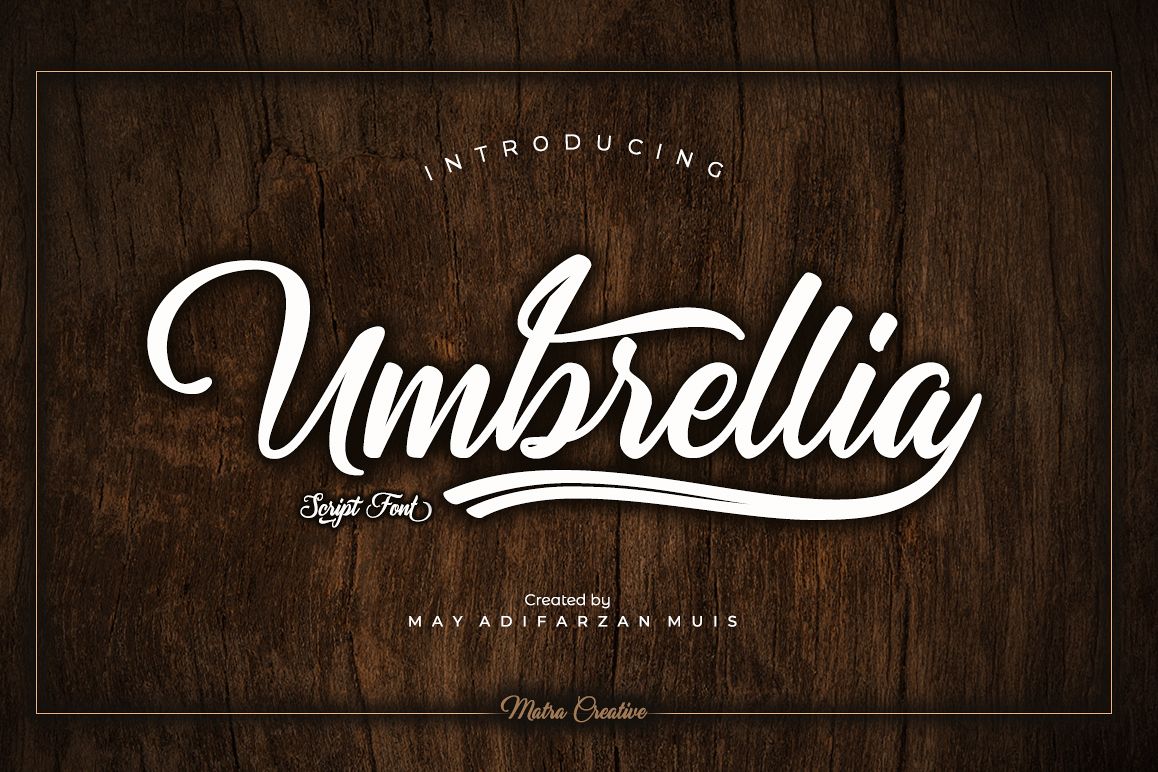
Umbrellia
Umbrellia Script is a calligraphy script font that comes with beautiful alternative characters. mixture of handleting copper calligraphy. Designed to bring elegance to style. Umbrellia comes with uppercase letters, lowercase letters, numbers, punctuation, and so many variations on each character including OpenType alternatives, and general binders to allow you to adjust the design. Classic styles are very suitable to be applied in various formal forms such as invitations, labels, menu, logo, fashion, make up, stationery, letterpress, romantic novels, magazines, books, greeting / wedding cards, packaging, labels. Umbrellia Script has 582 glyphs. including various language support. With the OpenType feature with alternative styles, binders and characters, it allows you to mix and match pairs of letters that match your design, as well as a touch of ornament to make this font look elegant.
Upper Case & Lowercase
Stylistic Alternates
Standart Ligatures
Numerals & Punctuations (OpenType Standard)
Accents (Multilingual characters)